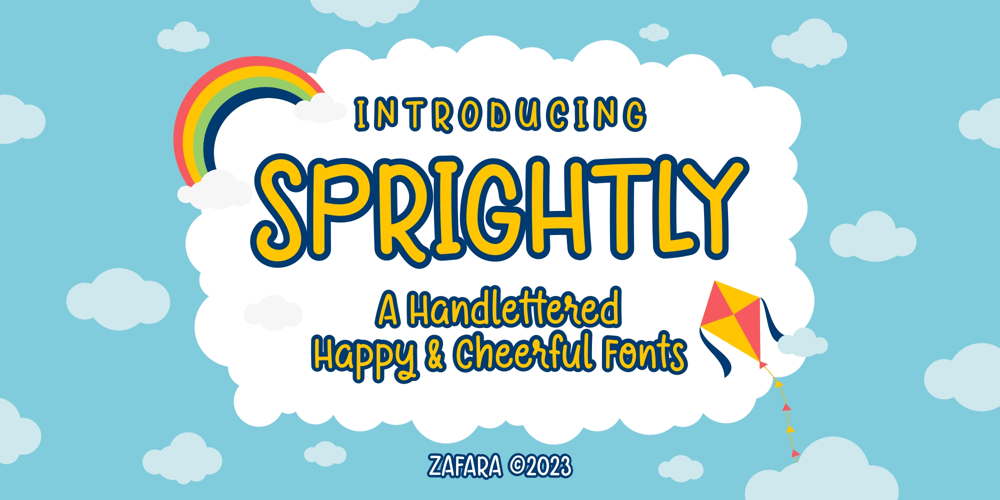
Sprightly Font Family was designed by Zohan Nur Muchlis and published by Zafara Studios. Sprightly contains 1 styles and family package options. Sprightly is a font designed to evoke feelings of joy, happiness and cheerfulness. This font can be used in children’s products, marketing materials, and other contexts where a cheerful mood is desired. However, it can basically be used with a wider range of themes depending on your design needs.The details:- 188 Glyphs: Uppercase, lowercase, numbers & language support- 5 Glyphs ligature- 23 Glyphs punctuation- Language Support: Danish, English, French, German, Irish, Italian, Portuguese, Spanish, Swedish, & Swiss German